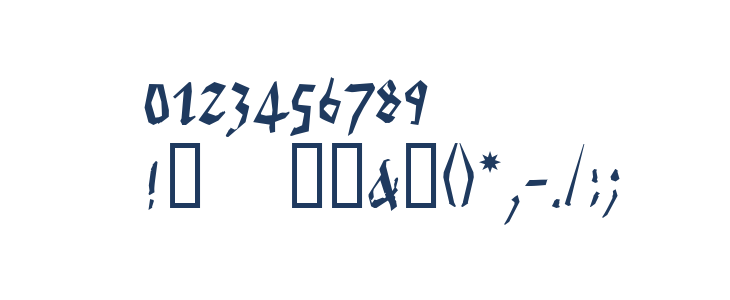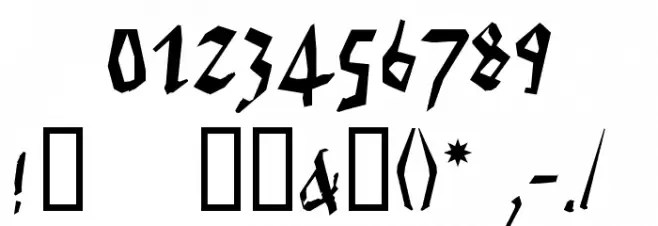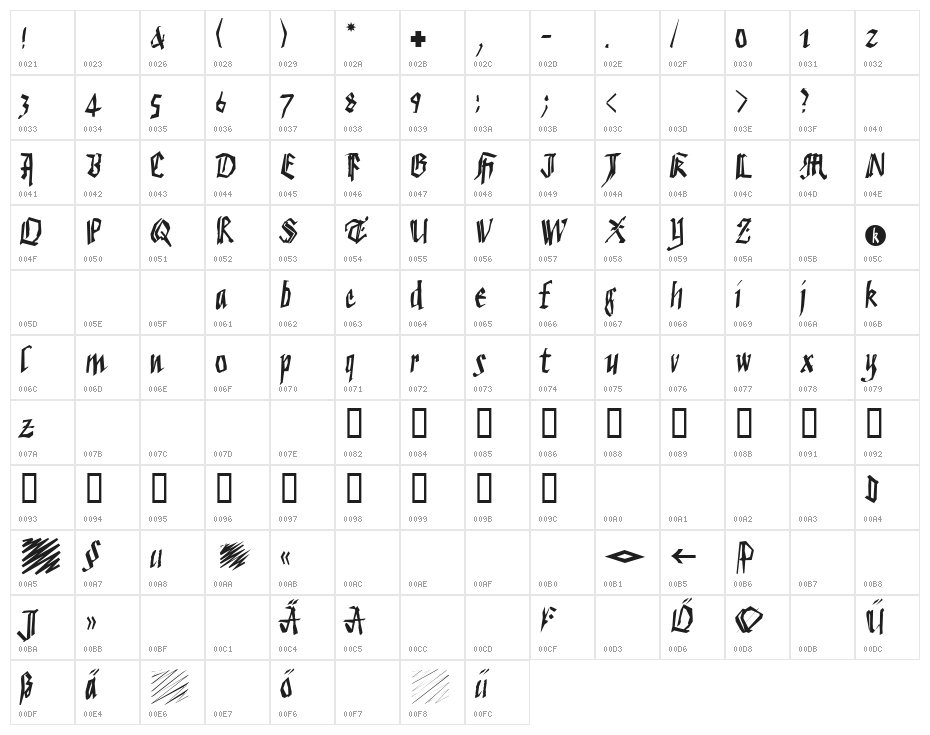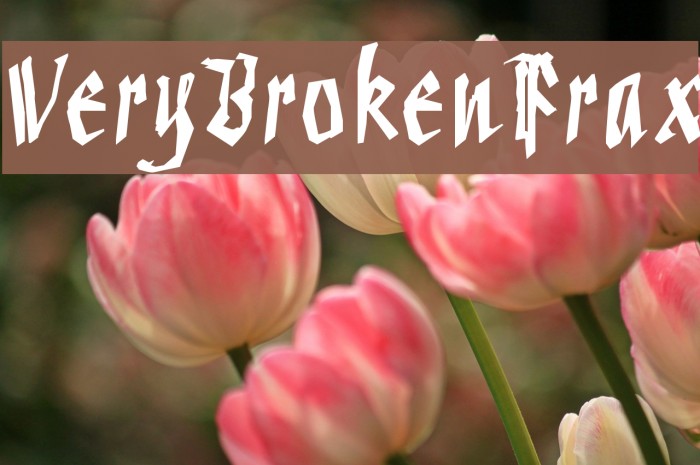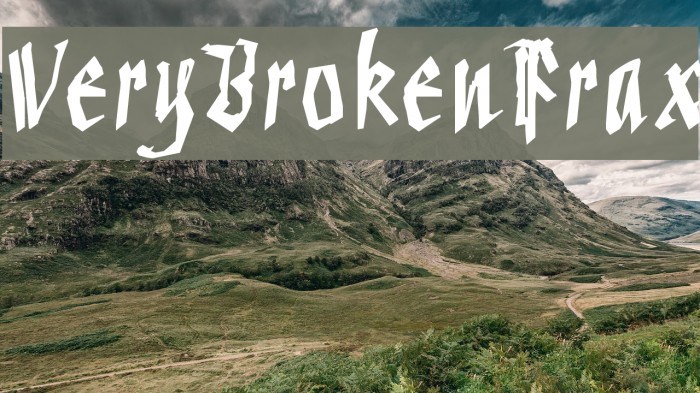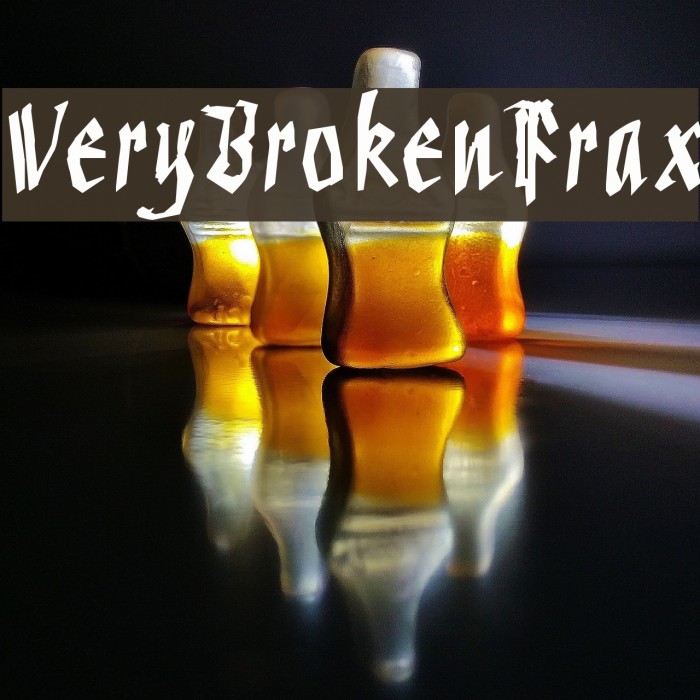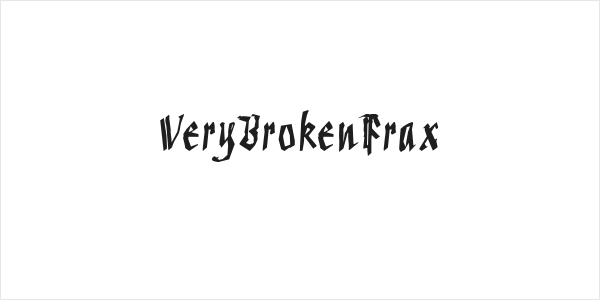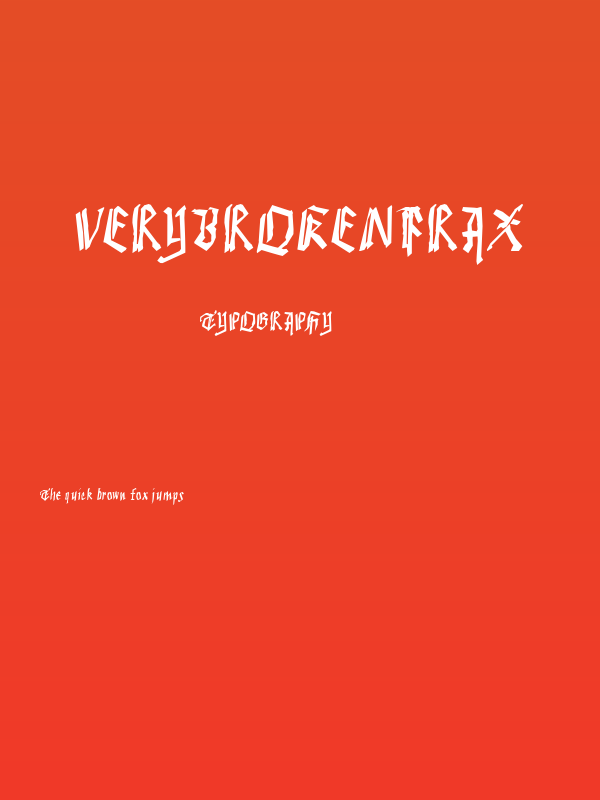
VeryBrokenFrax Font
This font features a bold, angular design with a distinctly Gothic or Blackletter style. The characters are sharply defined with dramatic, pointed serifs and a high contrast between thick and thin strokes. The uppercase letters are particularly ornate, with intricate details and a sense of historical gravitas. Lowercase letters maintain the same sharpness and angularity, providing a cohesive look across the typeface. Numbers and special characters follow the same stylistic cues, ensuring consistency throughout. The overall appearance is striking and commands attention, making it suitable for impactful design projects.
| Proposed Projects | Ideal for projects requiring a dramatic and historical aesthetic, such as event posters, book covers, or branding for vintage-themed products. |